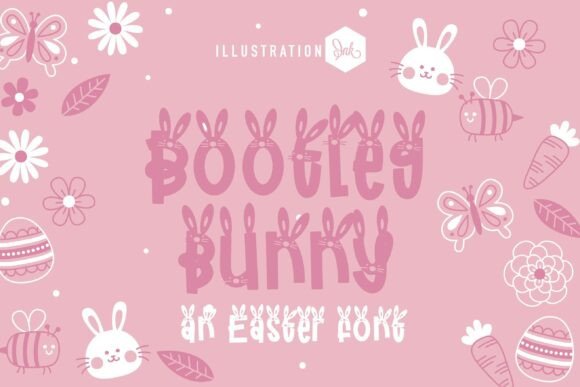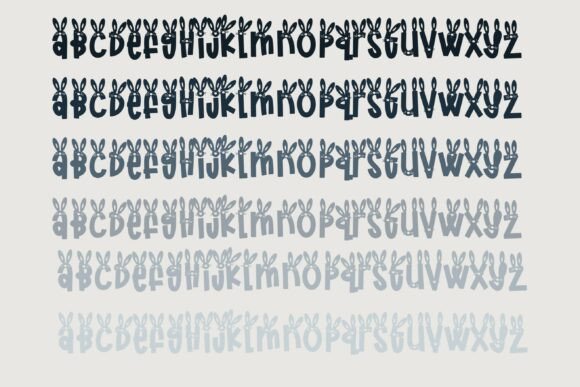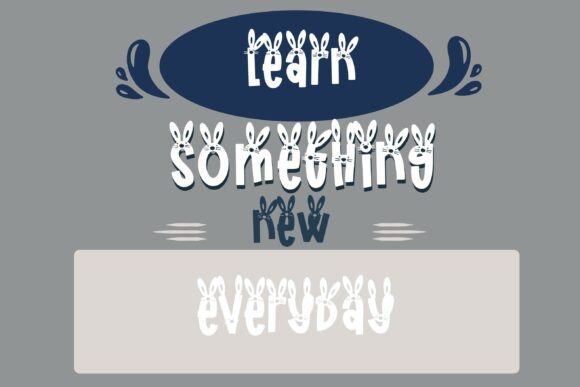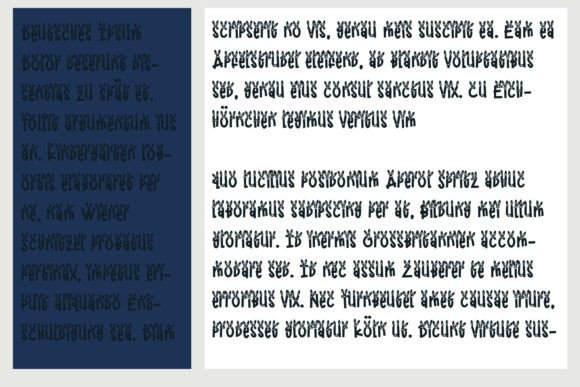
Bootleg Bunny Font
About the Bootleg Bunny Font
The Bootleg Bunny Font offers a perfect balance of form and function for your design needs. This hand-crafted font is a whimsical sans serif with bunny ears and faces.
Bootleg Bunny’s playful nature makes it ideal for children’s books, branding for playful products, or whimsical posters. It excels in headlines and short, impactful text, adding a touch of hand-crafted charm. However, its unique character and varying letterforms make it unsuitable for body text or situations requiring high readability over extended lengths.
Consider pairing Bootleg Bunny with a clean sans-serif like Open Sans for a balanced contrast, or a classic serif like Garamond for a more sophisticated feel. A simple, geometric sans-serif could also create a modern juxtaposition.
The font’s overall personality is undeniably playful and friendly, yet retains a handcrafted warmth. It’s best suited for projects that need a touch of lightheartedness and personality.
Bootleg Bunny Font Usage Examples
Bootleg Bunny Font Example